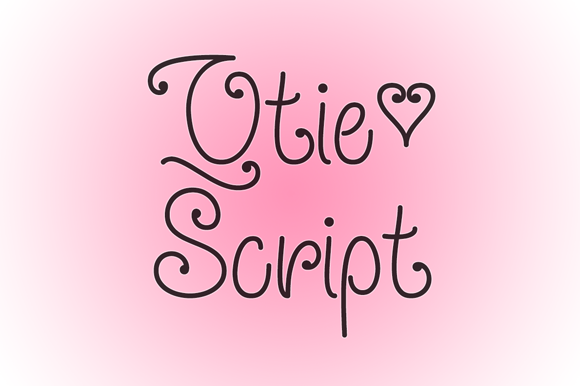
Behold, Qtie Script Font - the enchanting script font that brings a touch of genuine cuteness, playfulness, and charm to your creative endeavors! This beautiful script font is the brainchild of the talented Misti, who poured their heart and soul into crafting each letterform with utmost care and precision.
Embrace the allure of Qtie Script Font and watch as your designs take on a life of their own. Let your imagination run wild as you explore the endless possibilities this font offers. From whimsical invitations and eye-catching social media posts to captivating branding materials and heartfelt personal letters, Qtie Script Font is the perfect choice to add a touch of magic and personality to any project.
Step into a world where imagination knows no bounds and let Qtie Script Font ignite your creativity. Dive into a sea of captivating designs and elevate your projects to new heights. Experience the joy of creating something truly special with a font that speaks to your heart.